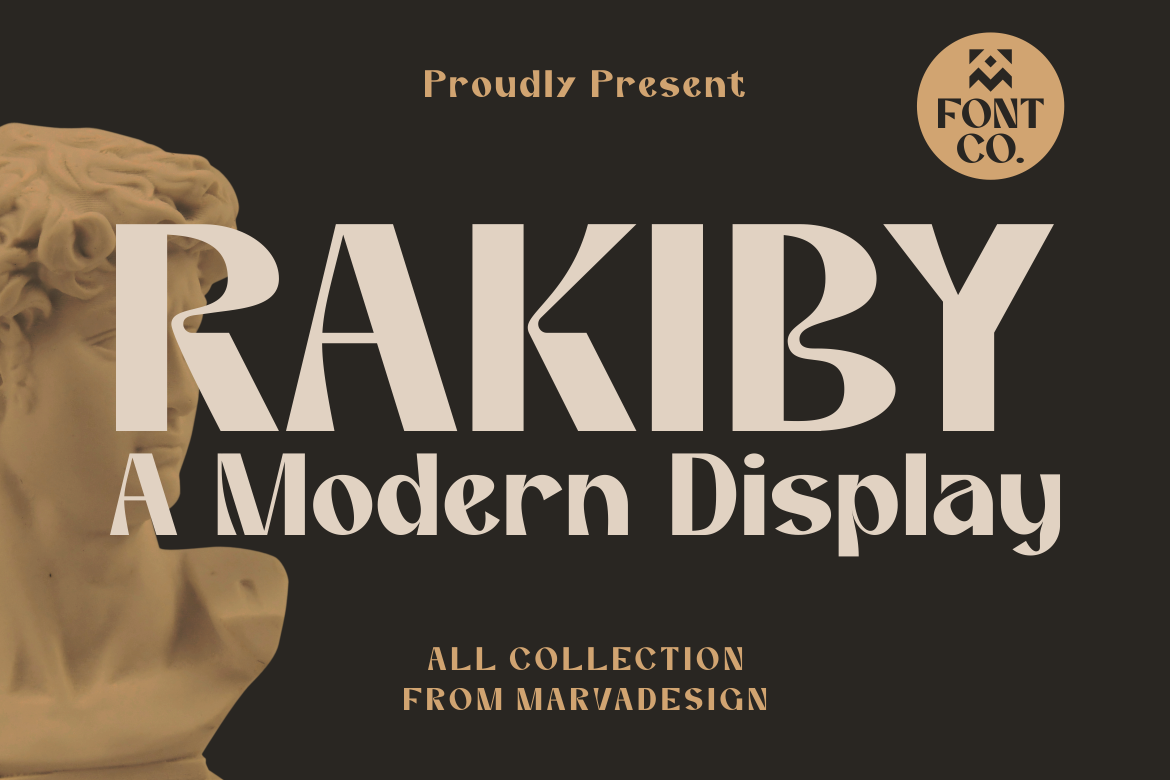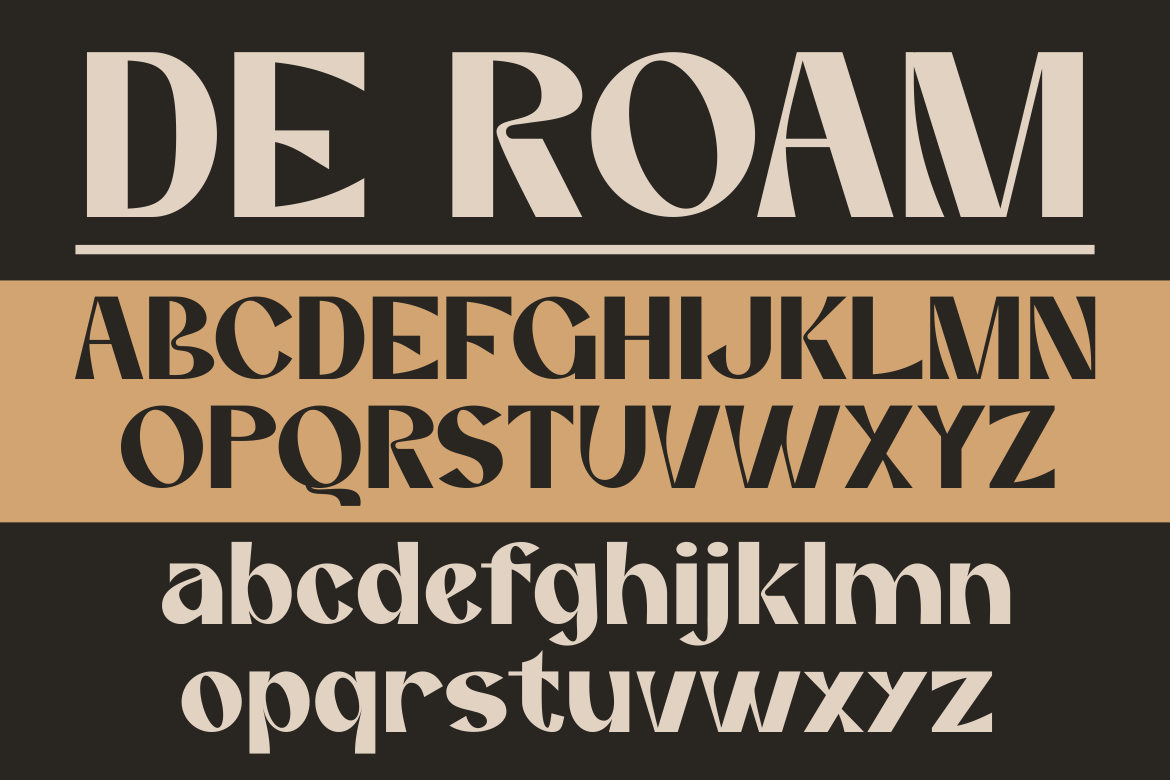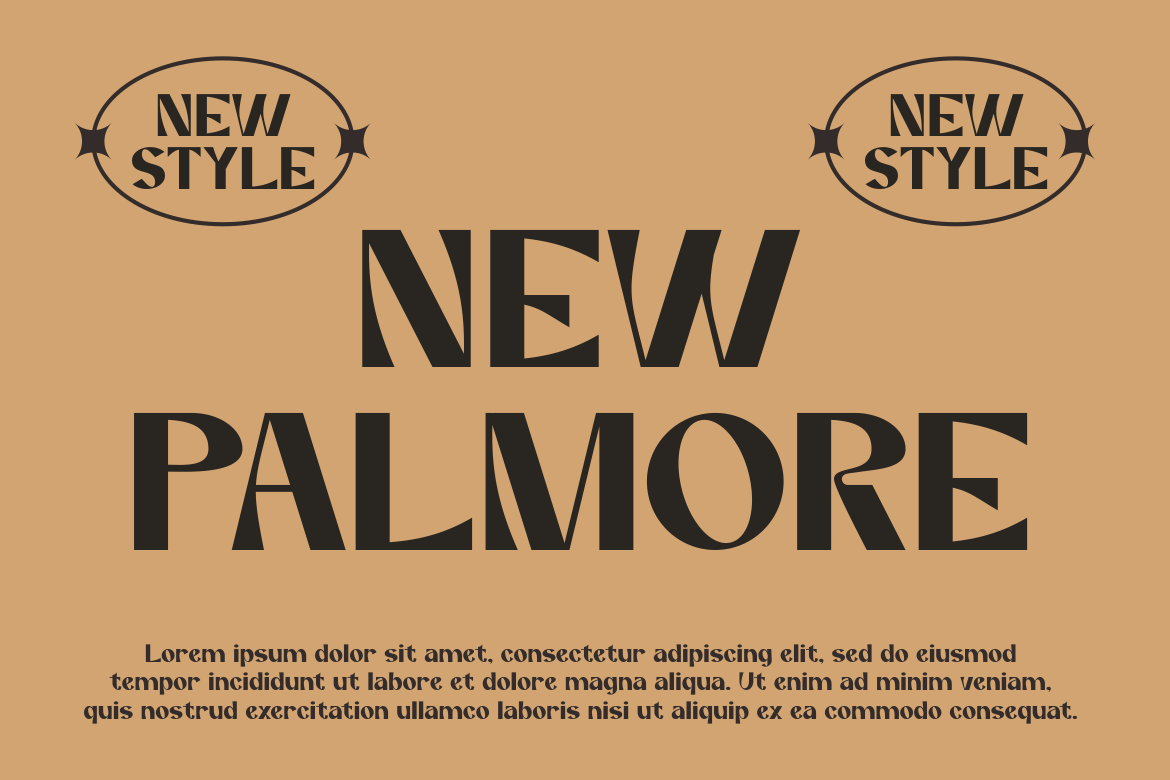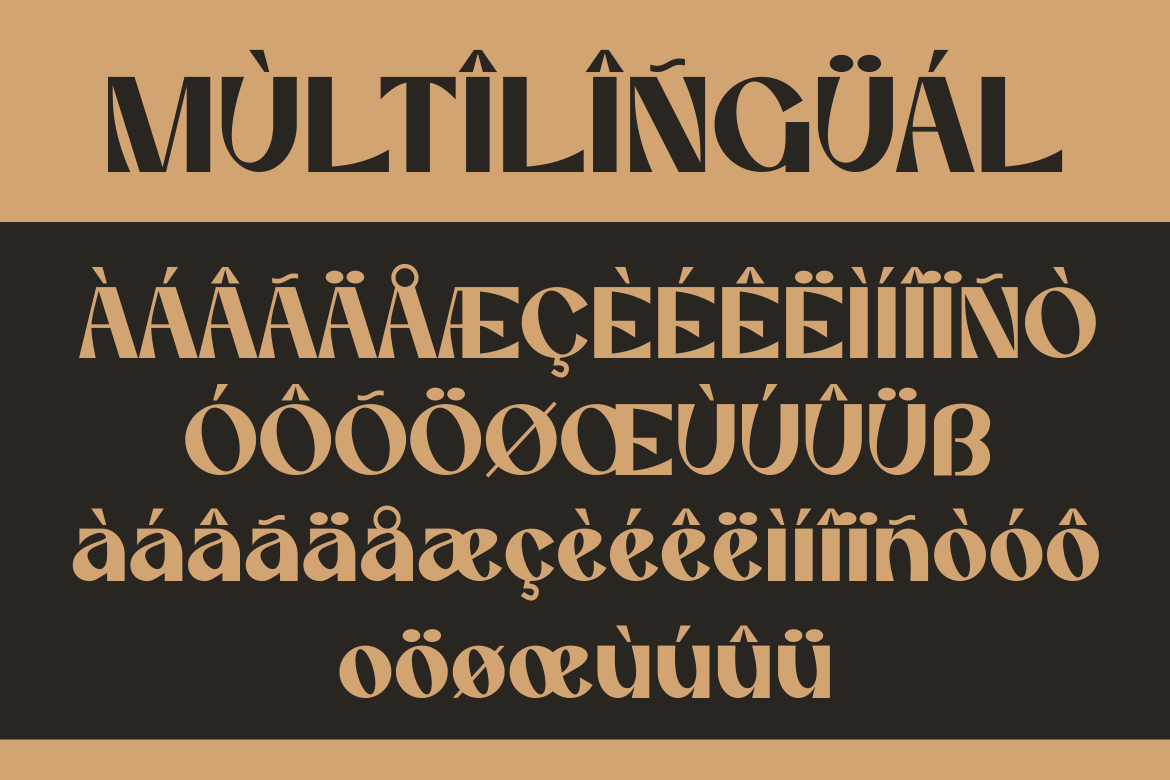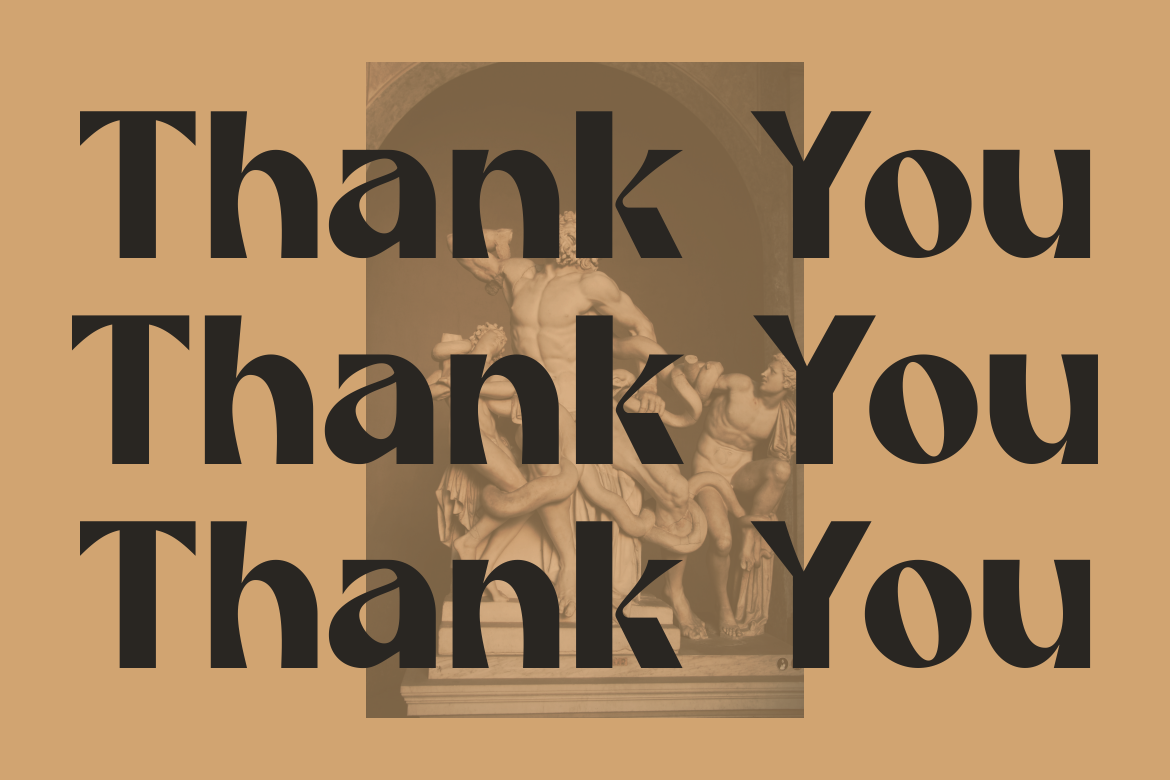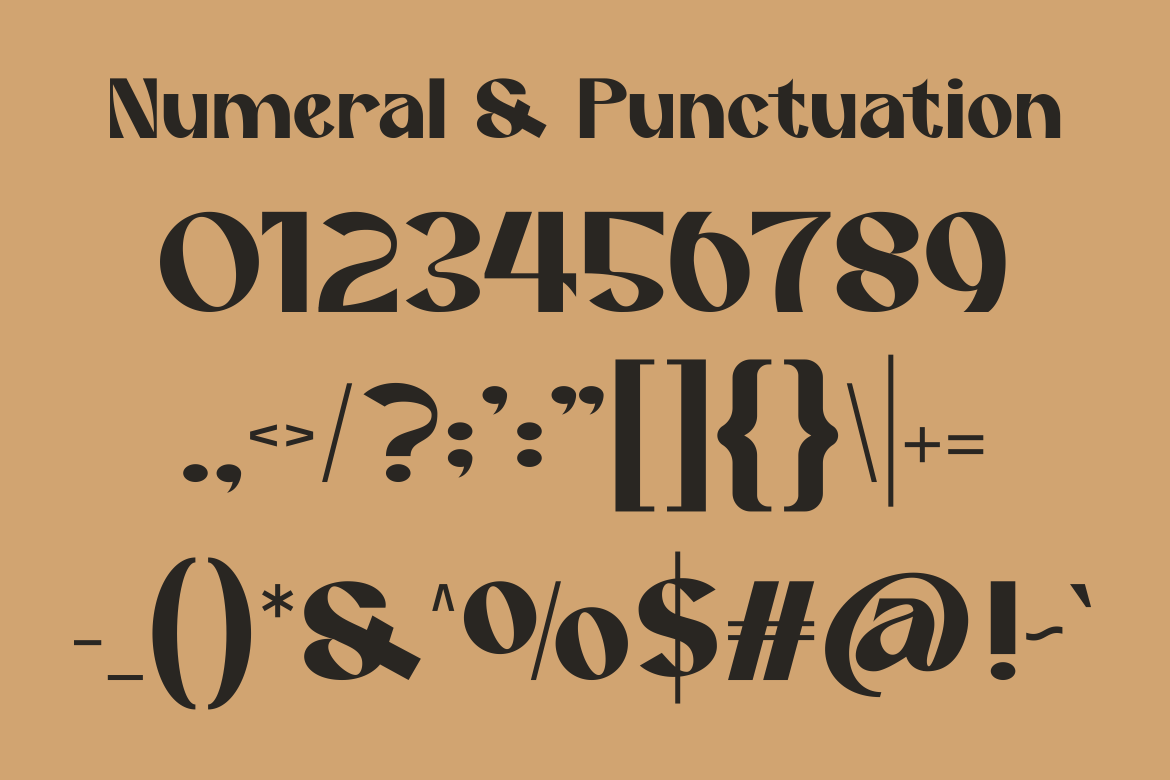
Introducing our new product RAKIBY Font - Modern Font RAKIBY Font** - Modern Font is a bold and authentic display font. The font is suitable for any branding project like logo,Template Design, Product and many more. outstanding in a wide range of contexts.